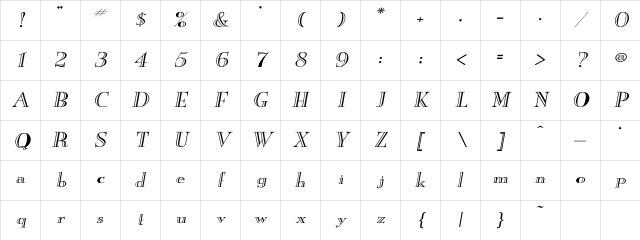
NewOrderCdItEng Regular
Design Context for NewOrderCdItEng
NewOrderCdItEng is a composed and adaptable typeface that performs quietly and consistently across a wide range of design contexts.